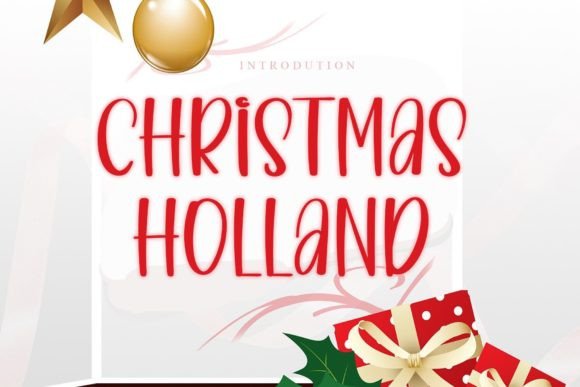
**Christmas Holland: The Font That Embraces the Magic of Christmas**
Christmas Holland is not just a script font; it's a doorway to a world of festive charm and holiday cheer. With its clean, relaxed, and friendly handwritten style, this font captures the essence of Christmas like no other.
**A Font That Radiates Warmth and Nostalgia**
Each letter in Christmas Holland is like a delicate snowflake, dancing with grace and elegance. Its neat and simple style imparts a sense of warmth and nostalgia, reminiscent of childhood Christmas memories. The font's flowing lines evoke the feeling of a cozy fire crackling on a cold winter's night, the aroma of gingerbread cookies baking in the oven, and the joy of unwrapping presents on Christmas morning.
**Versatile and Endlessly Charming**
The versatility of Christmas Holland is as boundless as the Christmas spirit itself. Whether you're designing holiday cards, creating festive social media posts, crafting Christmas-themed marketing materials, or personalizing your Christmas decorations, this font is your perfect companion. Its clean lines and simple style ensure that it complements any design, adding a touch of Christmas magic without overpowering the overall aesthetic.
**Elevate Your Christmas Creations to New Heights**
With Christmas Holland, your Christmas creations will shine brighter than a star atop a Christmas tree. The font's enchanting style will captivate your audience, drawing them into the warmth and joy of the Christmas season. Whether you're a seasoned designer or just starting, Christmas Holland is the font that will make your designs stand out from the crowd, leaving a lasting impression that resonates with the Christmas spirit.